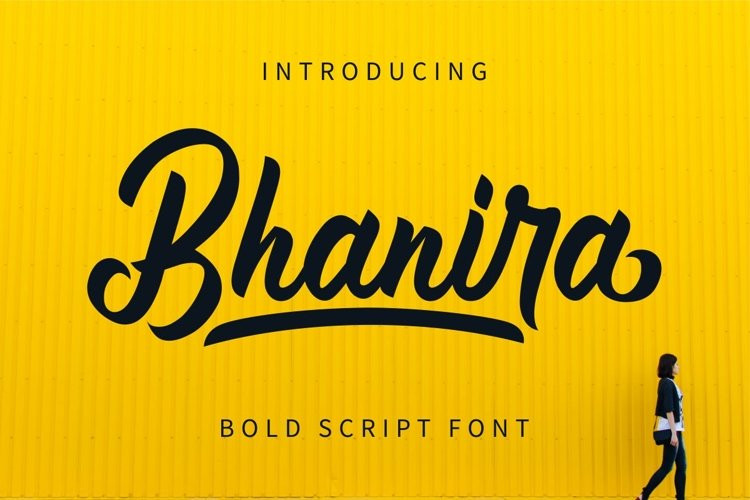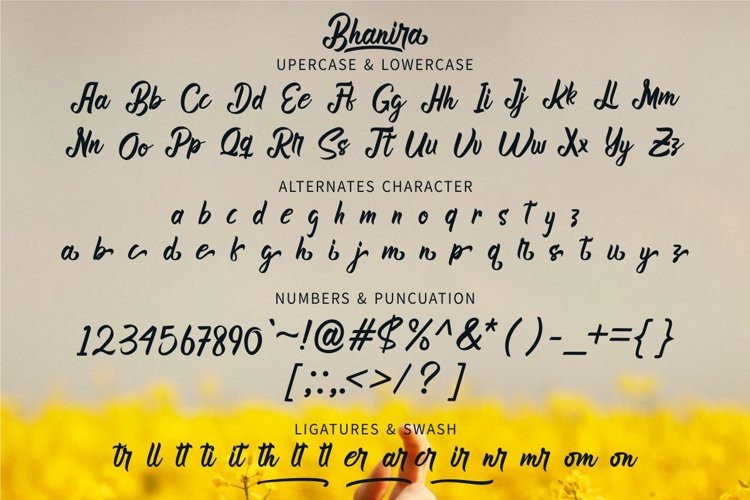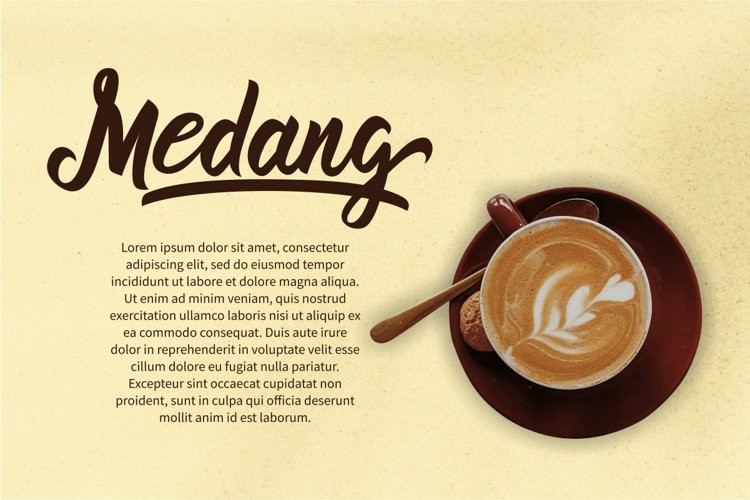
Bhanira Font
Bhanira FontBhanira is handwritten that comes with a lifestyle. Fancy font styles that can come in many ways for your latest project. Bhanira is perfect for logos & branding, photography, invitations, watermarks, advertisements, product design, stationery, wedding designs, labels, product packaging, special events or anything that requires handwritten content. Bhanira Also available for some lowercase characters which have a stroke. This can be easily accessed via opentype in Photoshop / Illustrator. Greetings GFRcreative